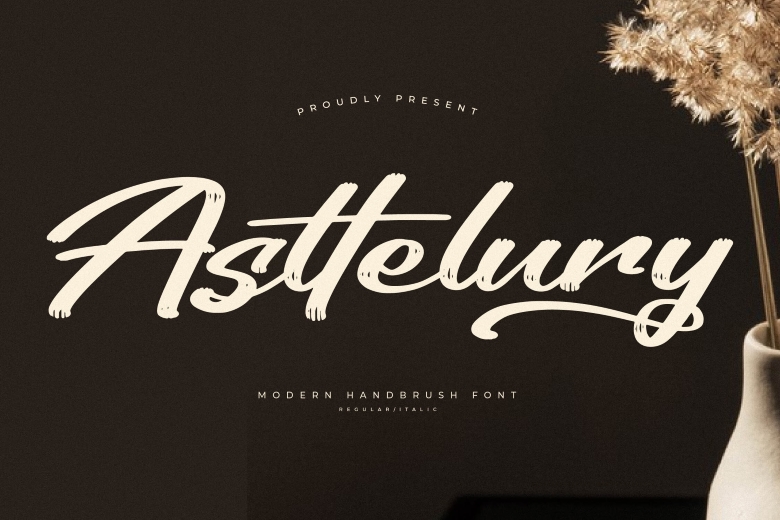
Asttelury – Modern Handbrush Font , from Letterena, is a Luxury Script font, suitable for any projects such as: logo, branding, home accessories, packaging, mug print, quote, poster, shopping bag, T-shirt, book cover, namecard, invitation, greeting, label, photography, watermark, special occasions, and all your other luxury and beautifully and that bit fancy projects that need a touch of Nice Luxury serif.
Asttelury Brush Font